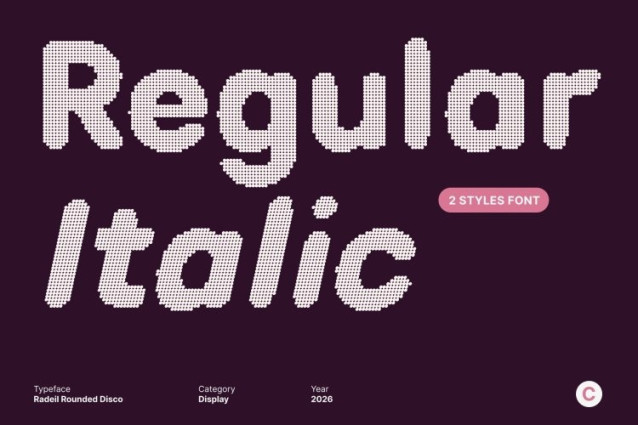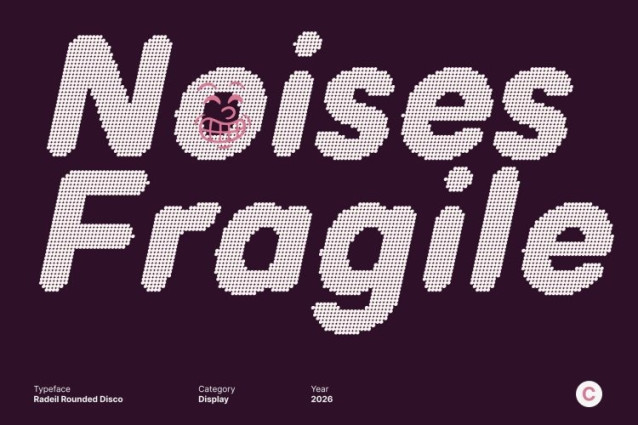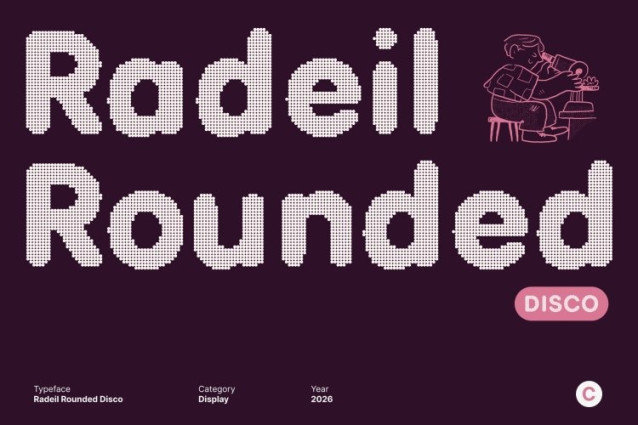
Radeil Rounded Disco Font
Radeil Rounded Disco Font This is a friendly sans serif font that blends soft, rounded letterforms with a lively disco-inspired spirit. Its low-contrast construction and smooth curves create an inviting, approachable look, while the disco style adds a touch of glamour, rhythm, and playful energy. The result is a typeface that feels warm, modern, and full of life.
Approachable Design with a Festive Glow
Designed to feel welcoming and cheerful, this font radiates positivity and ease. The rounded shapes soften every word, while the disco influence injects excitement like reflections from a glowing dance floor. This balance makes perfect for designs that want to feel friendly yet celebratory.
Low Contrast for Comfort, Disco Style for Impact
The low-contrast letterforms ensure excellent readability across sizes and platforms, making it suitable for both digital and print use. At the same time, the disco character brings visual flair and energy, allowing content to stand out without losing its calm, friendly tone.
Versatile for Branding, UI, and Joyful Visuals
This font adapts beautifully to branding, UI/UX design, social media graphics, posters, and cheerful editorial layouts. Its soft structure communicates comfort and trust, while the festive disco vibe adds fun, movement, and modern personality.